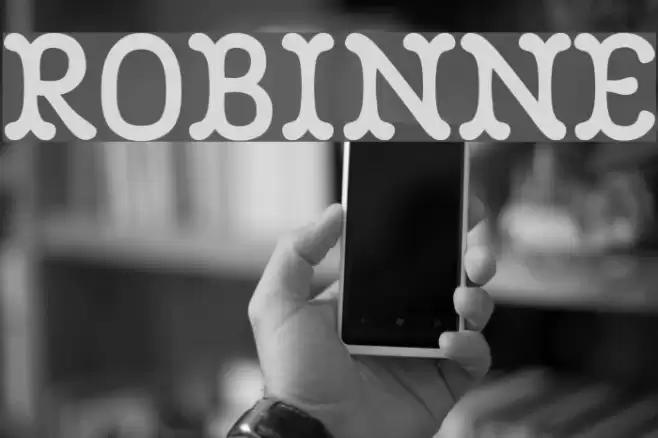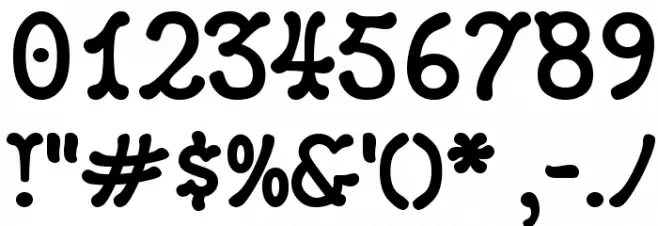
Robinne Font
Robinne Description
This font features a playful and bold design with rounded, bubbly serifs that give it a whimsical and friendly appearance. The characters are evenly spaced, with a consistent stroke width that maintains a uniform look across both uppercase and lowercase letters. The numbers and special characters follow the same playful style, making the font suitable for creative and informal projects. Its unique style is characterized by its decorative elements, which add a touch of fun and personality to any text.
A playful, bold serif font with rounded, bubbly serifs and a whimsical style from Uncategorized fonts.
- Proposed Projects: Ideal for children's books, playful branding, party invitations, and creative posters.
- Overall Style: Playful, Whimsical, Decorative